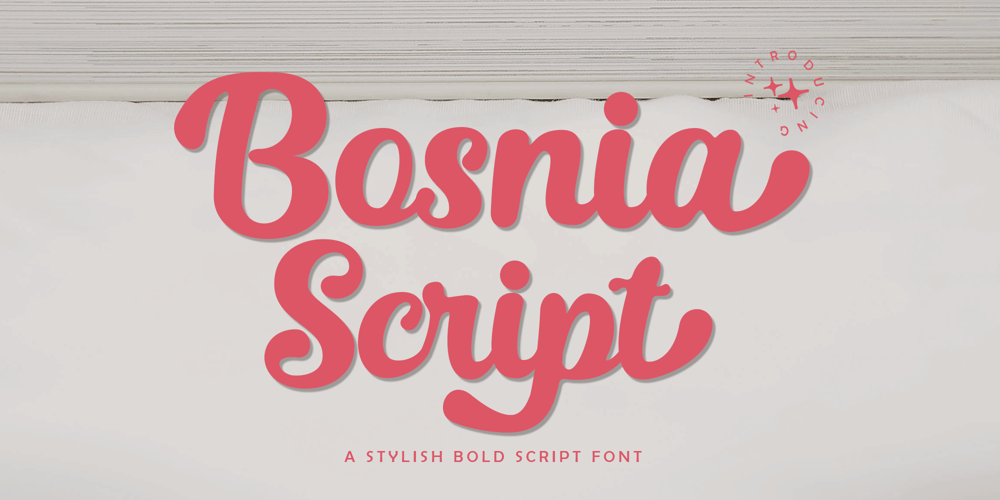
Bosnia Script Font Family was designed by Zaki Muhammad and published by madjack.font. Bosnia Script contains 1 styles and family package options. Bosnia Script is a modern script font that features a classic and elegant touch.Bosnia Script is appealing because it is sleek, clean, feminine, sensual, glamorous, simple, and very readable, thanks to its many fancy letter connections. I also offer a number of decent style alternatives for some of the letters. The classic style is perfect for use in various formal forms such as invitations, labels, restaurant menus, logos, fashion, makeup, stationery, novels, magazines, books, greeting/wedding cards, packaging, labels, or any type of advertising purposes. . . . . . .need help or have questions, let me know. I’m happy to help.Thank you.